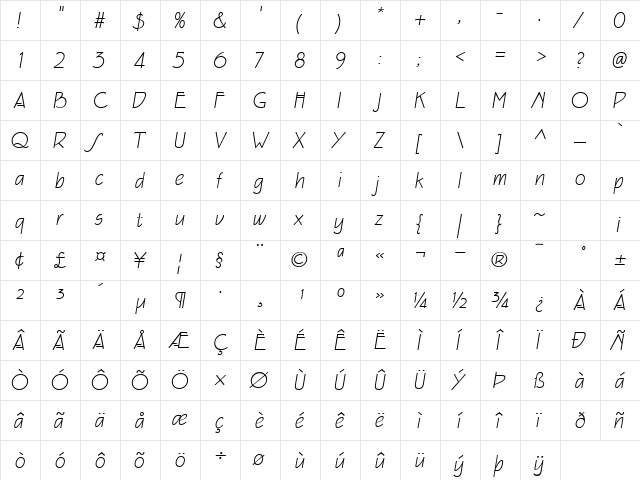
EaglefeatherFormalLightIt Regular
Design Context for EaglefeatherFormalLightIt Typeface
EaglefeatherFormalLightIt takes a measured approach to typography — its balanced proportions and neutral character make it a reliable workhorse for both digital and print work. The delicate stroke weight brings airiness and refinement to layouts.